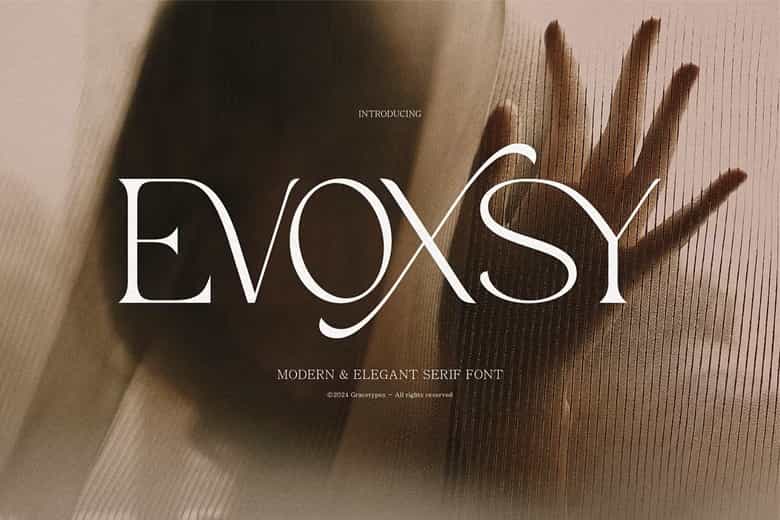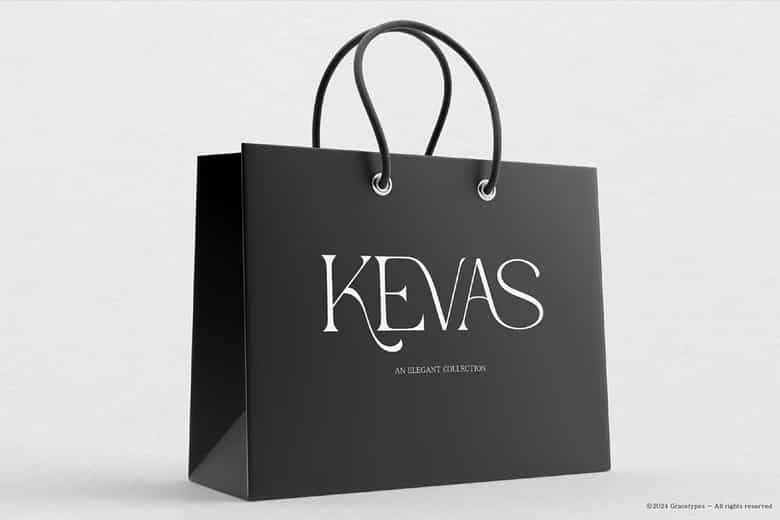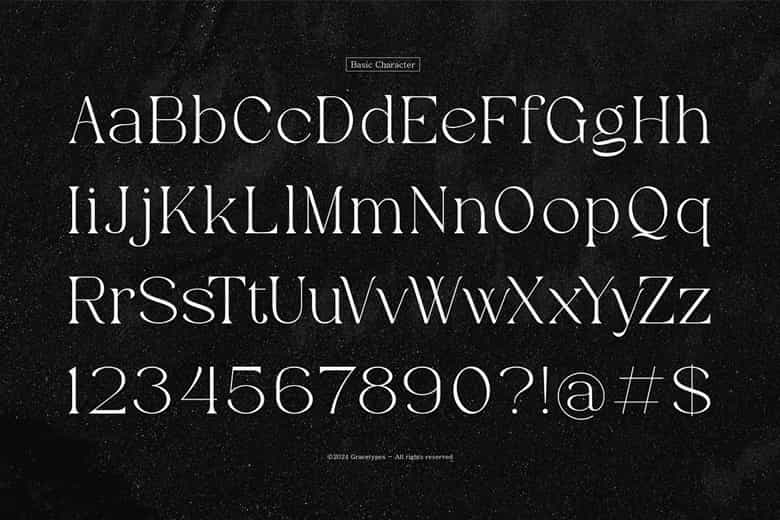
Evoxsy Font
The reader will find Evoxsy a faint yet elegant and classy serif font that can best be described as new school yet old school. This calligraphy is most suitable for the luxury brands, magazines, wedding invitations as well as fashion industry. The luxurious appeal of Evoxsy should enlighten all your designs.